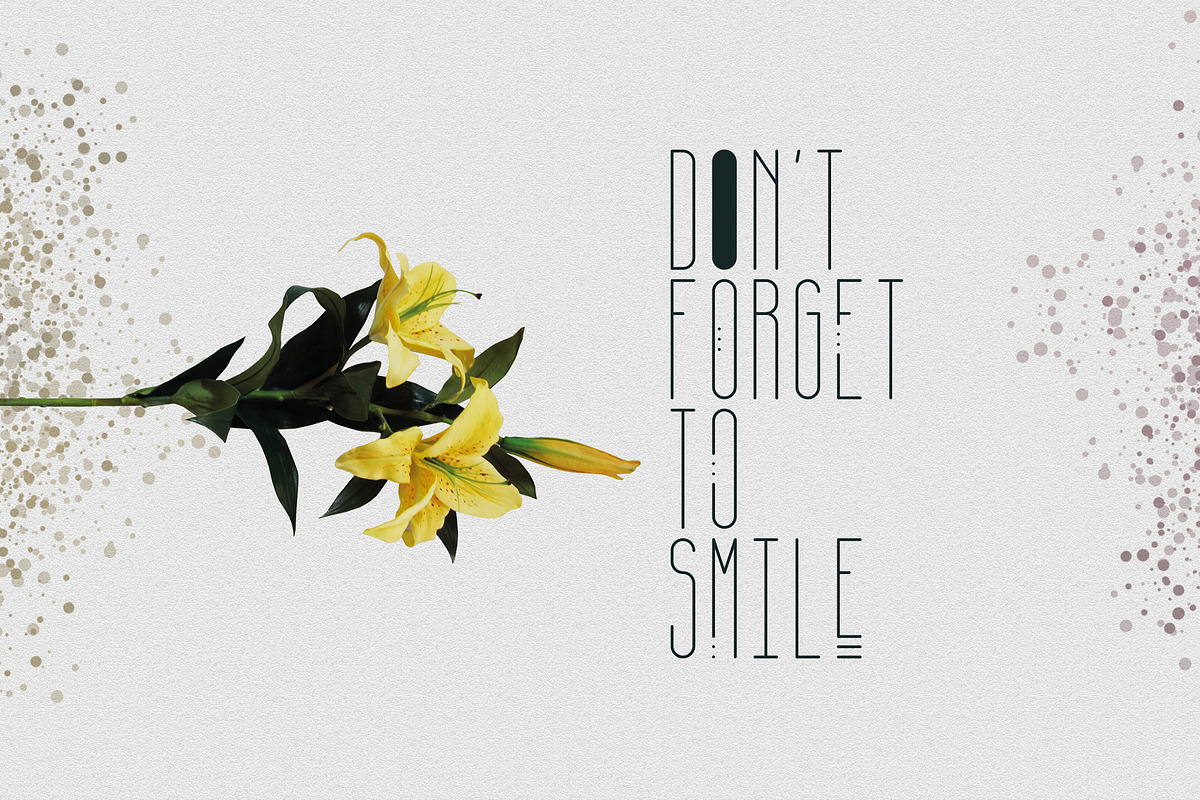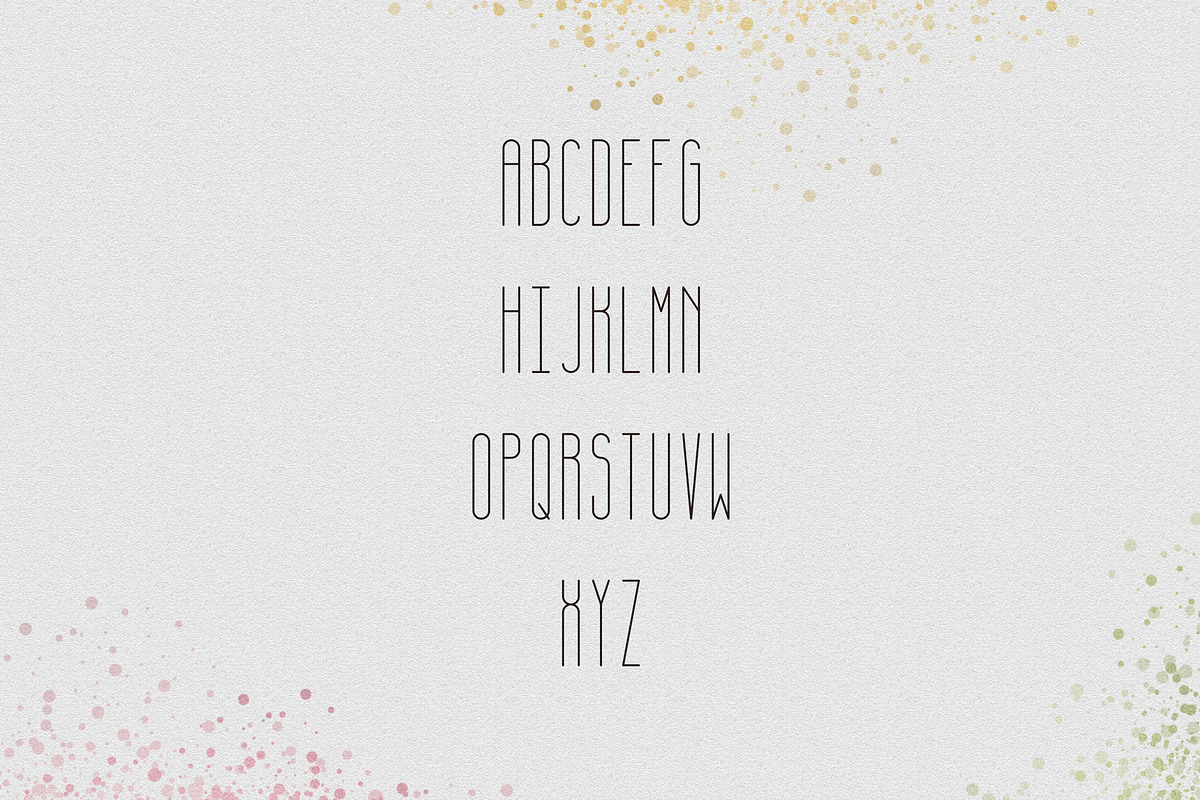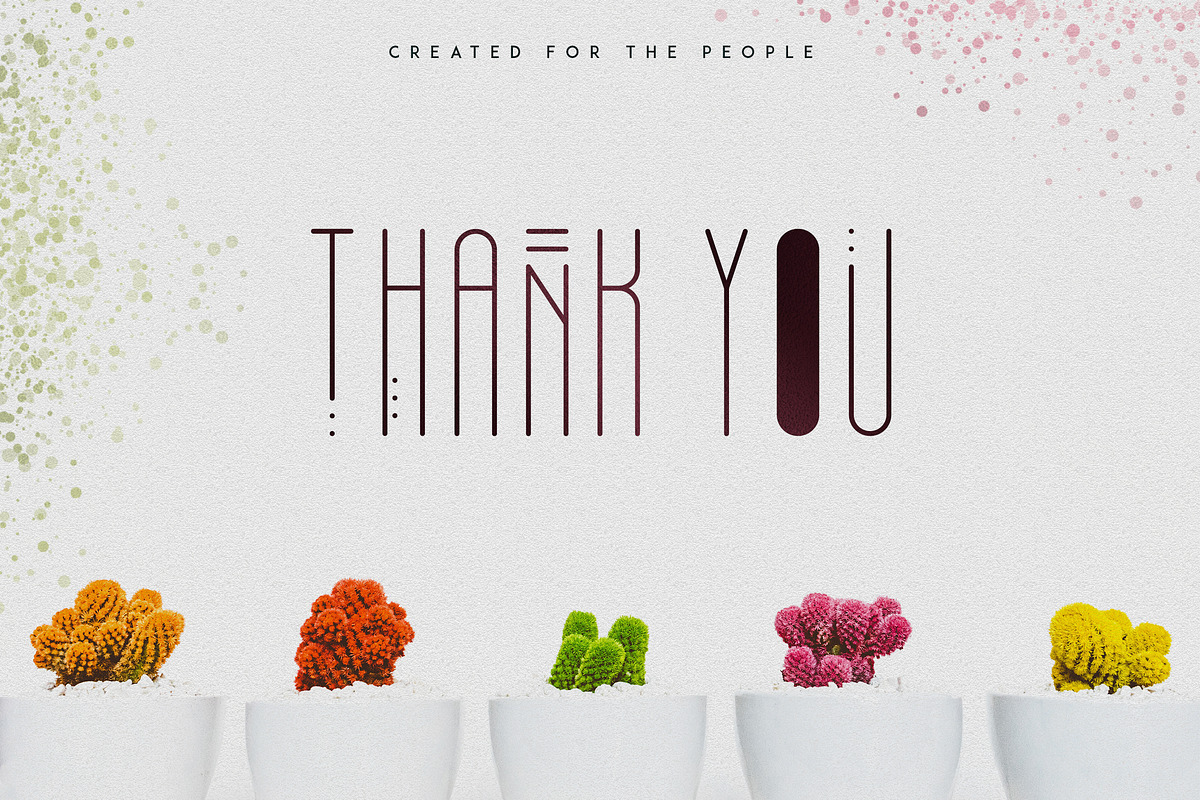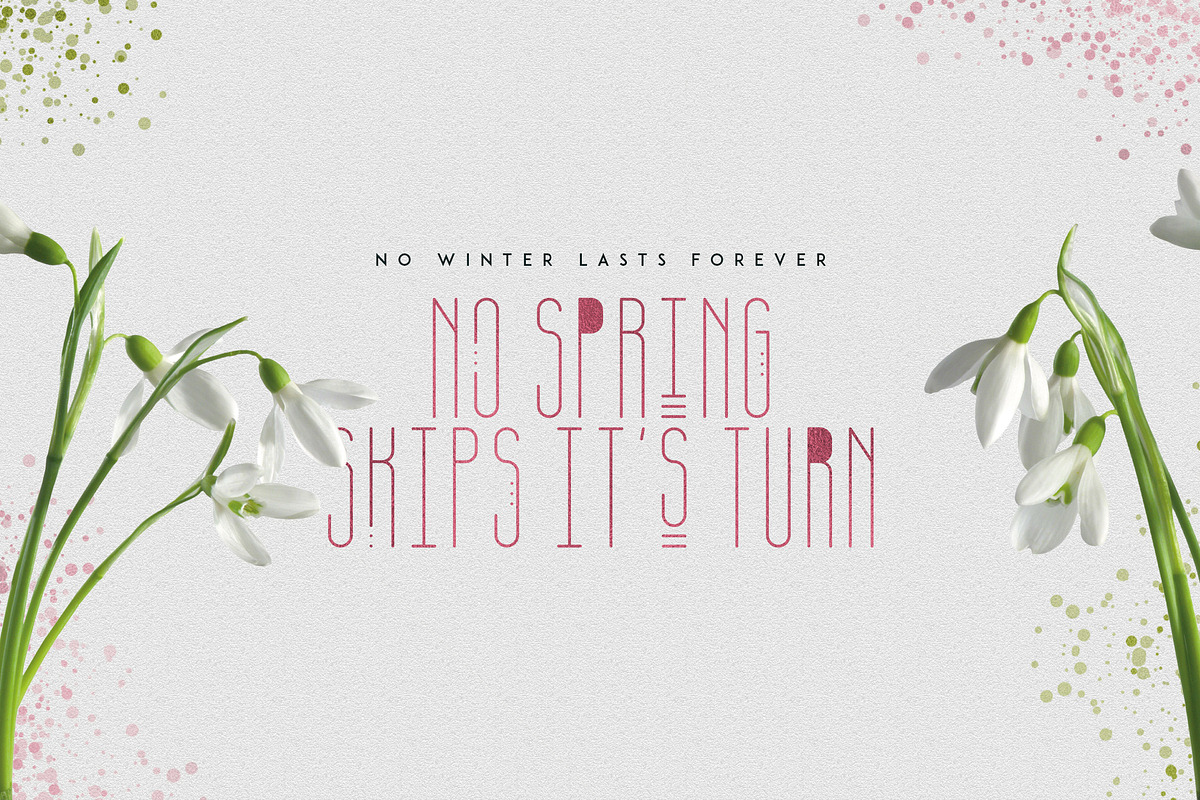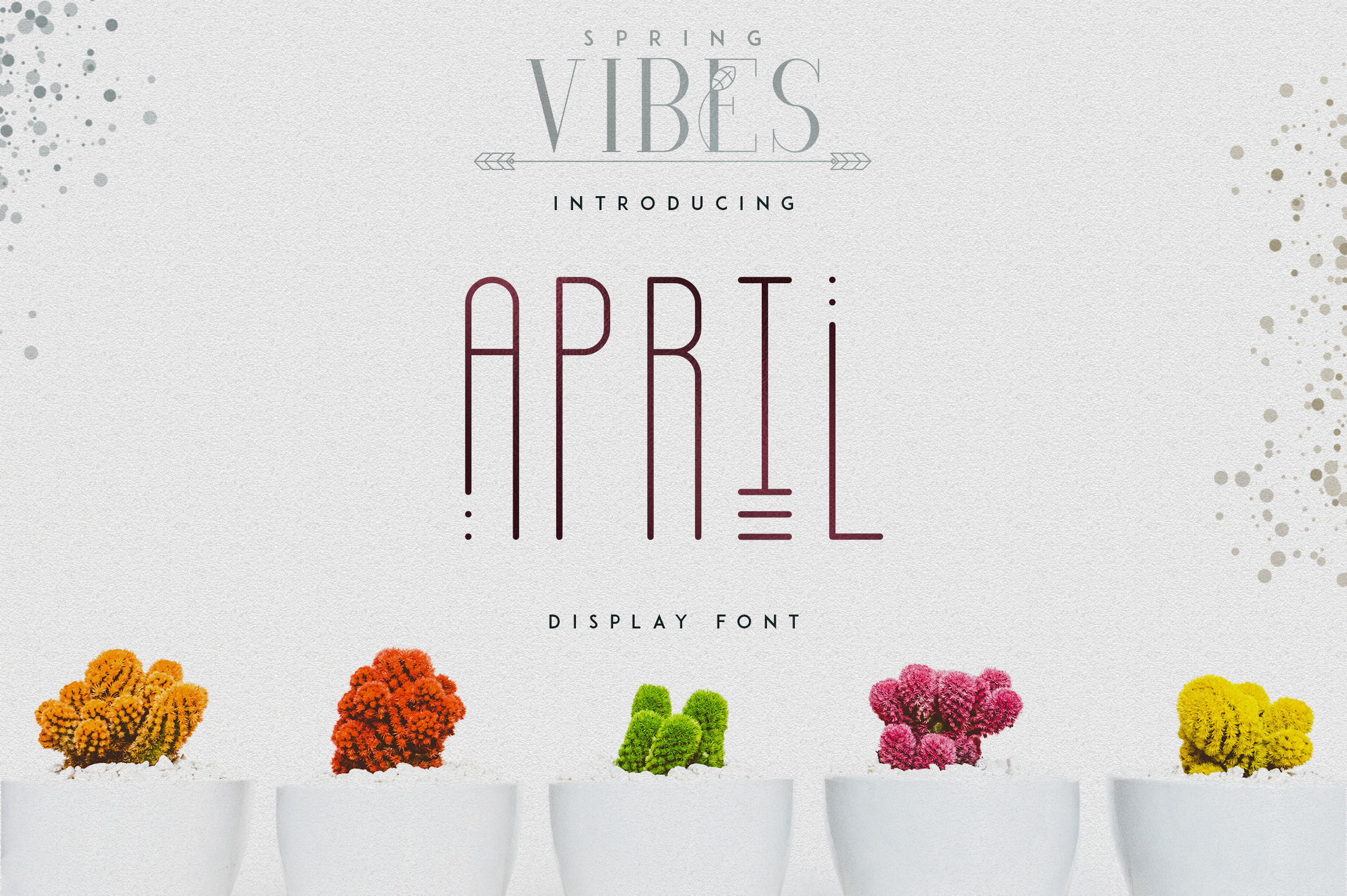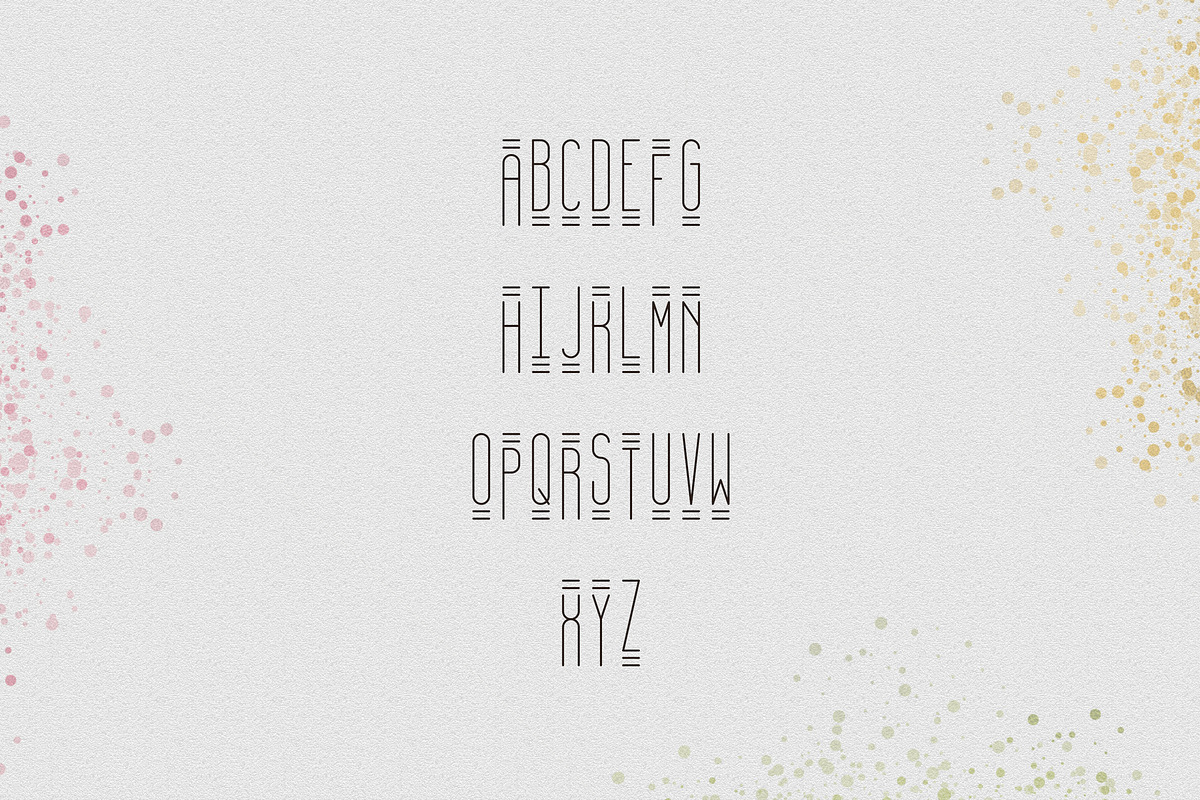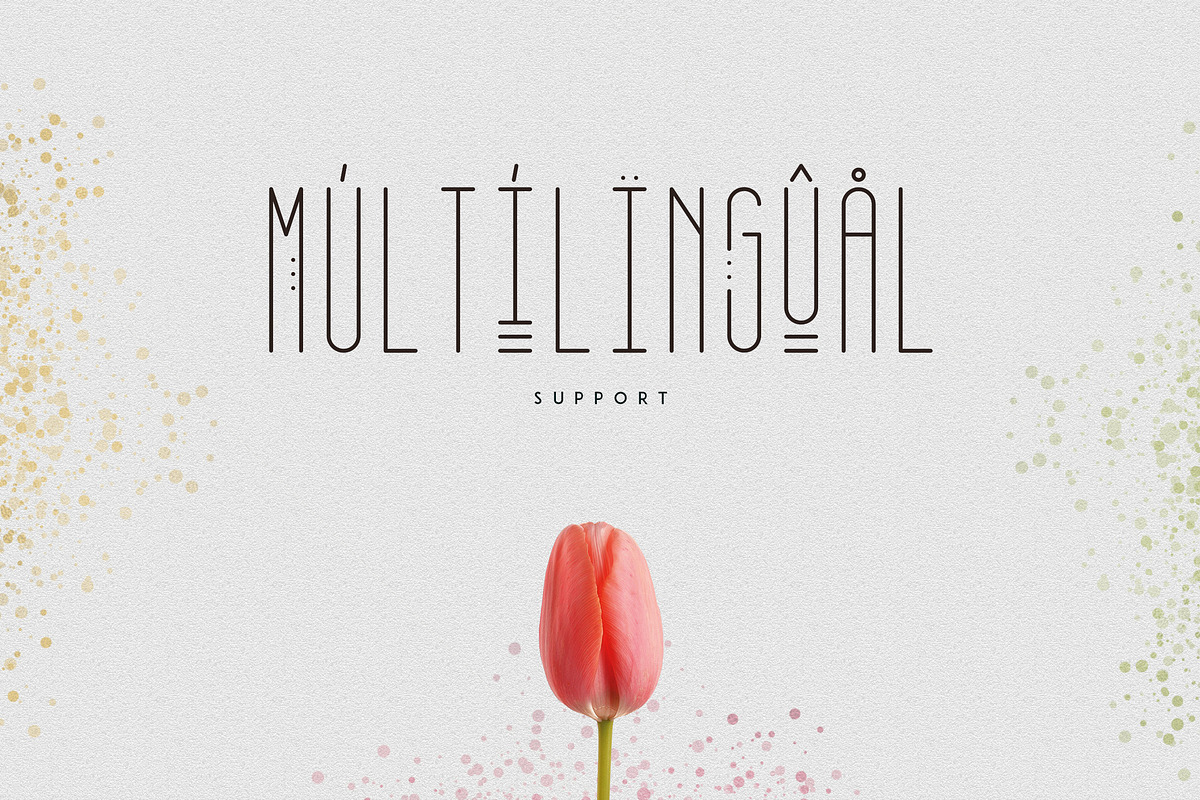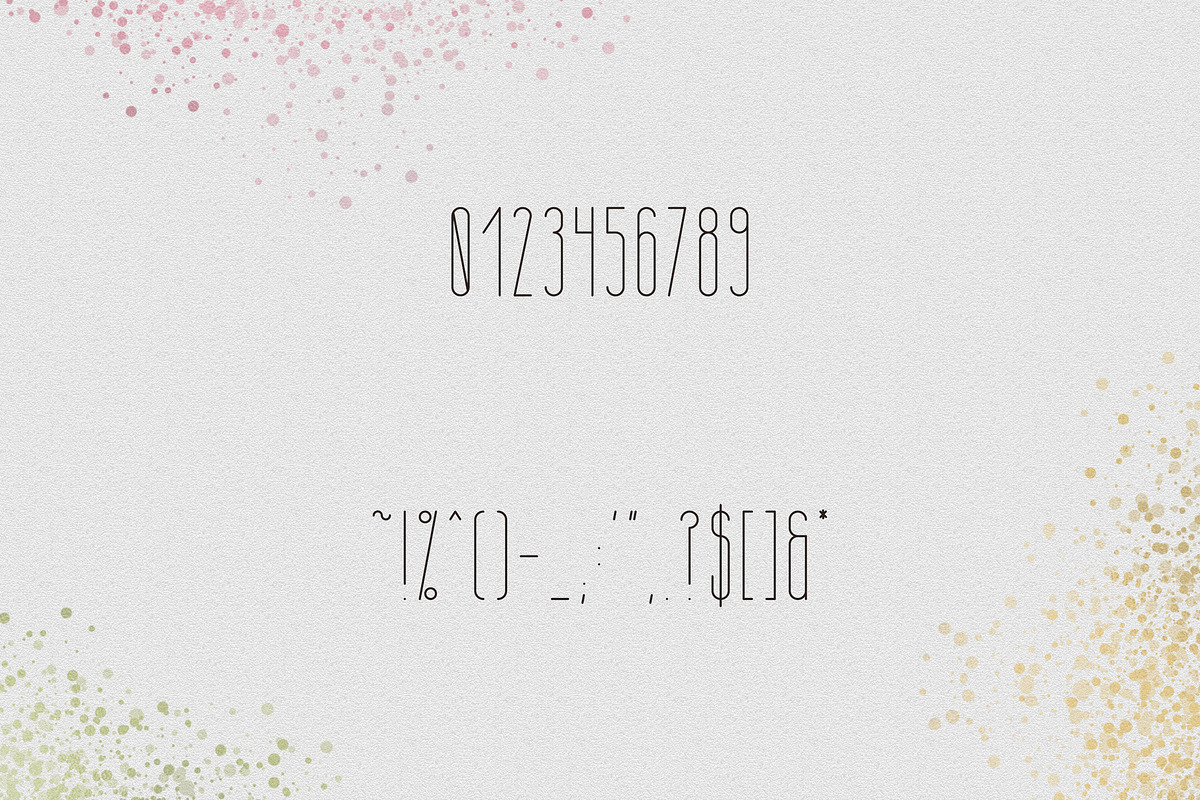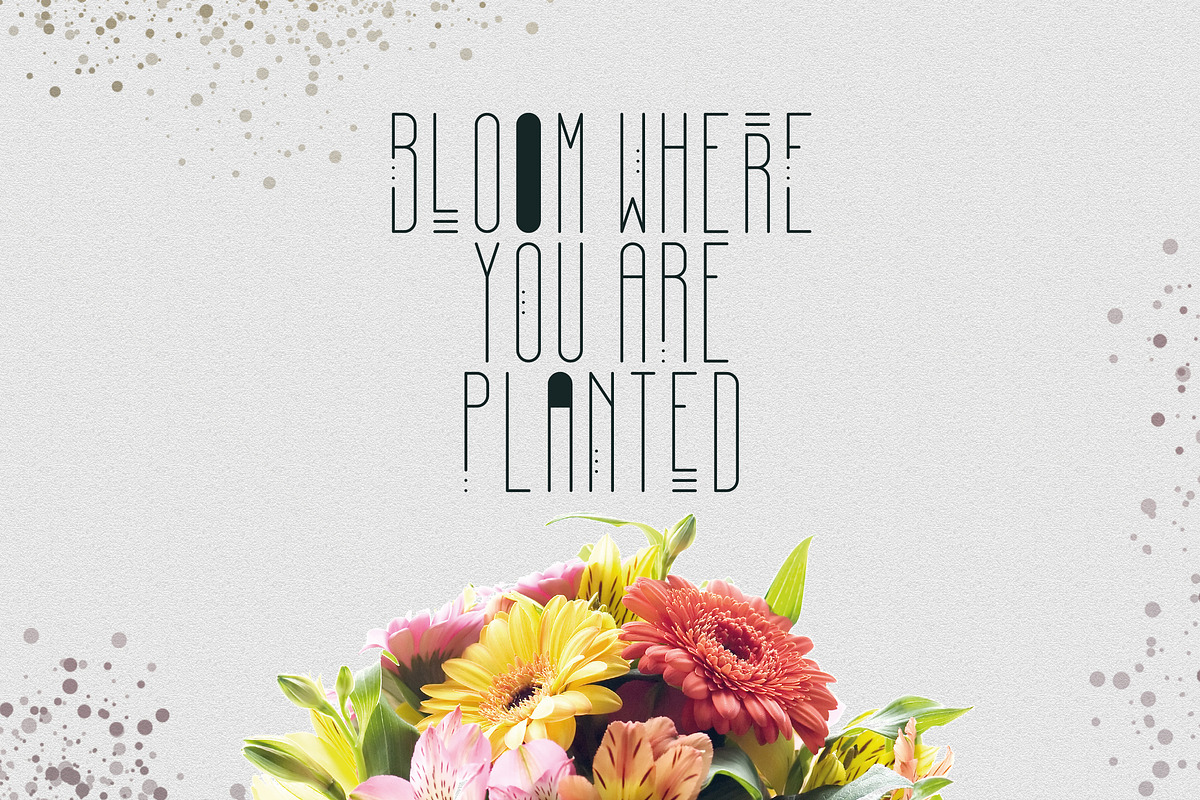
[Spring Vibes] April Display Font
Introducing 3rd product from Spring Vibes collection called April Display font
April is stretched display font with 66 alternatives, multilingual support and photoshop styles. It's a very versatile font that works great in large and small sizes.
April is perfect for branding projects, home-ware designs, product packaging, wedding invitations, magazine headers - or simply as a stylish text overlay to any background image.
- Uppercase,lowercase,numeral,punctuation & Symbol
- 66 Alternative Glyphs
- Photoshop Styles